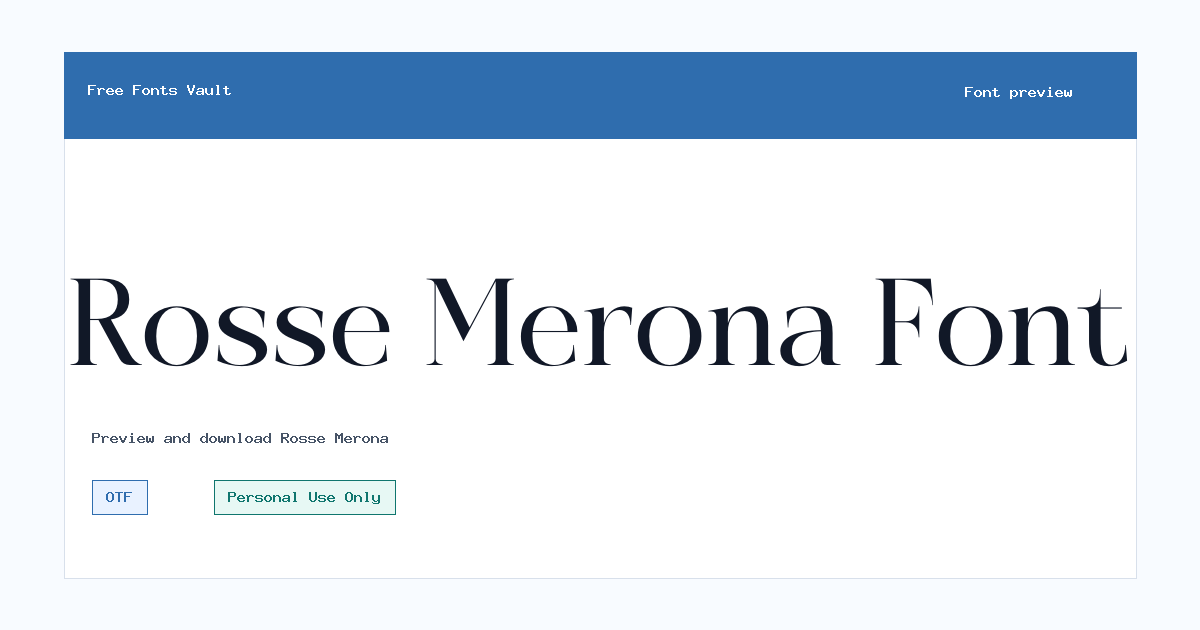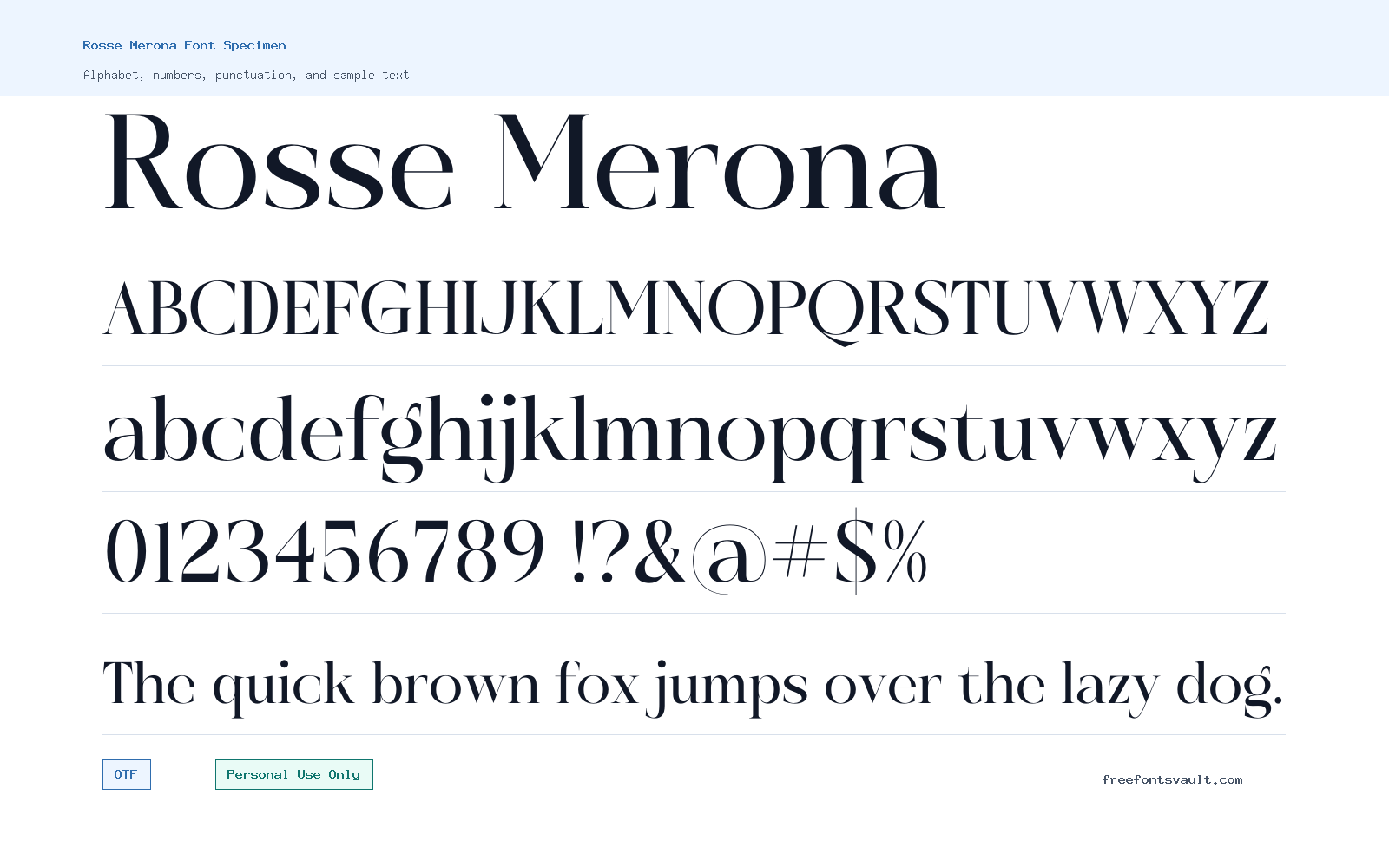
Rosse Merona
Rosse Merona font preview showing the family name
Rosse Merona Font
Rosse Merona font specimen showing alphabet, numbers, and sample text
Rosse Merona font.
Rosse Merona is a serif font with a polished, display-friendly look for projects that need a graceful headline style. It is best treated as a personal-use font, so check the license before using it in client, business, or paid work.
About Rosse Merona
Rosse Merona works well when you want text to feel refined without making the layout too busy. As a serif design, it is a good choice to test for titles, names, short quotes, invitations, mood boards, boutique-style graphics, and social posts where the words need to carry the visual tone. The regular OTF file gives you a straightforward starting point: type your own words in the preview, adjust the size, and see how the letter shapes behave in real use. Because only a regular weight is listed, it is better to build contrast through size, spacing, color, and layout rather than relying on bold or italic family members.
Use Rosse Merona most carefully in places where readability matters. Serif display fonts can look elegant at larger sizes, but smaller text may lose clarity depending on the exact letters, spacing, and background. Try it first with the actual words you plan to use, especially if your design includes names, all-caps text, or long phrases. For body copy, pair it with a clean sans serif or a quiet text serif so Rosse Merona can stay focused on headings and accents. Keep the surrounding design simple: generous margins, moderate line spacing, and limited decorative elements will help the font stand out without making the page feel crowded.
• Serif style suited to headlines, short display text, invitations, branding drafts, and personal creative layouts.
• Personal invitations, quote graphics, mood boards, and elegant social media titles.
What is Rosse Merona best used for?
It is best for short, decorative text such as headings, invitations, quote designs, personal branding concepts, and social graphics.
Can I use Rosse Merona for body text?
It is better to test it carefully before using it for long paragraphs. For easier reading, use Rosse Merona for headings and pair it with a simpler font for body copy.